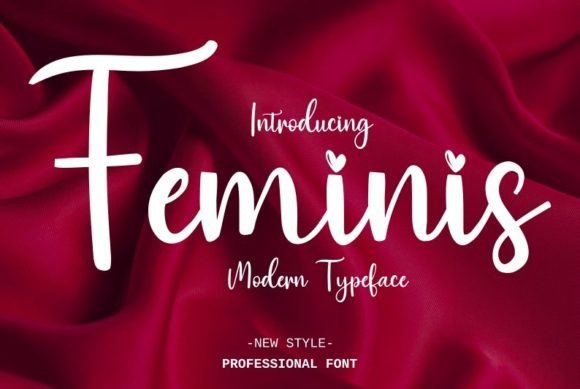
Feminis Font: The Ultimate Romantic Calligraphy Typeface for Your Design Projects
Are you a designer or crafter looking for a typeface that adds a touch of luxury and romance to your design projects? Look no further than Feminis Font, a beautiful and sweet calligraphy typeface that is sure to make your designs stand out. With its unique and elegant characters that dance along the baseline, Feminis Font is the perfect choice for anyone looking to add a touch of sophistication and glamour to their work.
What is Feminis Font?
Feminis Font is a romantic and sweet calligraphy typeface that features characters that dance along the baseline, creating a sense of movement and fluidity. This beautiful typeface is designed to add a luxury spark to any design project, making it perfect for designers and crafters who want to create elegant and sophisticated designs. Whether you’re working on a branding project, a wedding invitation, or a packaging design, Feminis Font is sure to make your design stand out.
Key Features of Feminis Font
Feminis Font has several key features that make it a standout typeface. Some of its key features include:
- Romantic and Sweet Design: Feminis Font has a romantic and sweet design that is perfect for creating elegant and sophisticated designs.
- Characters that Dance Along the Baseline: The characters in Feminis Font dance along the baseline, creating a sense of movement and fluidity.
- Luxury Spark: Feminis Font is designed to add a luxury spark to any design project, making it perfect for designers and crafters who want to create high-end designs.
- Highly Versatile: Feminis Font is highly versatile and can be used for a wide range of design projects, from branding and packaging to wedding invitations and more.
How to Use Feminis Font in Your Design Projects
Feminis Font is easy to use and can be incorporated into a wide range of design projects. Here are a few ways you can use Feminis Font in your designs:
- Branding and Packaging: Use Feminis Font to create elegant and sophisticated branding and packaging designs that will make your clients stand out.
- Wedding Invitations: Feminis Font is perfect for creating beautiful and romantic wedding invitations that will set the tone for the big day.
- Social Media Graphics: Use Feminis Font to create eye-catching social media graphics that will help you stand out on social media.
- Stationery and Printables: Feminis Font is perfect for creating elegant and sophisticated stationery and printables, such as business cards, letterheads, and more.
Tips for Getting the Most Out of Feminis Font
Here are a few tips for getting the most out of Feminis Font:
- Use it Sparingly: While Feminis Font is beautiful, it can be overwhelming if used too much. Use it sparingly to create a sense of elegance and sophistication.
- Pair it with Other Fonts: Feminis Font pairs well with other fonts, such as sans-serif fonts. Experiment with different font combinations to find the perfect look for your design.
- Experiment with Colors: Feminis Font looks beautiful in a variety of colors. Experiment with different colors to find the perfect look for your design.
Feminis Font is a beautiful and romantic calligraphy typeface that is perfect for designers and crafters who want to add a touch of luxury and sophistication to their design projects. With its unique and elegant characters that dance along the baseline, Feminis Font is sure to make your designs stand out. Whether you’re working on a branding project, a wedding invitation, or a packaging design, Feminis Font is the perfect choice. So why wait? Download Feminis Font today and start creating elegant and sophisticated designs that will leave a lasting impression!